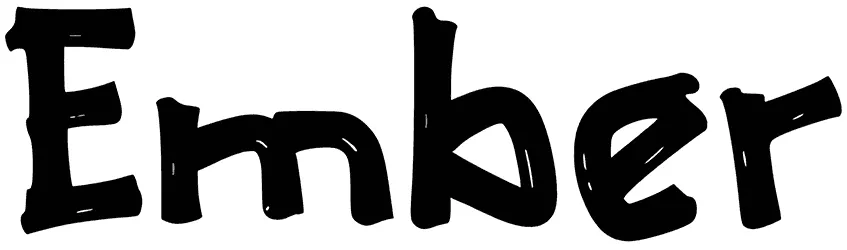
e Ember Font
Turns out that if you use a modern and artistic face for your layout, the final showcase will be more engaging. This has such a visual, and you can count on it to add a cool vibe to your creative layouts, namely a themed-party invitation. Set e Ember font on your new design and create your ideal presentation.